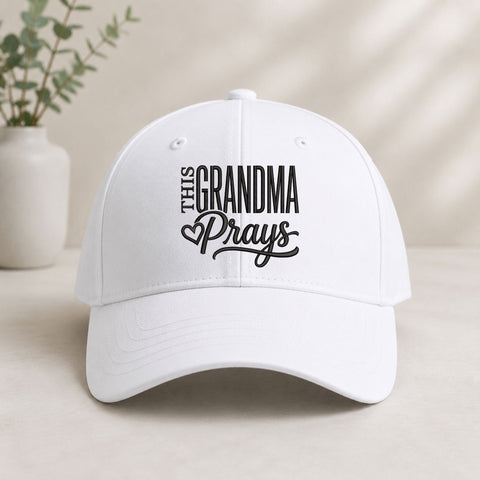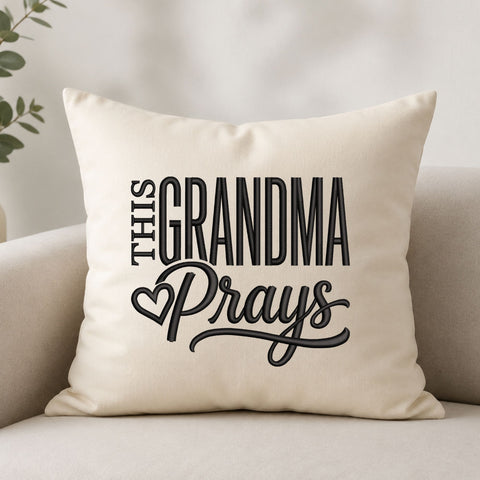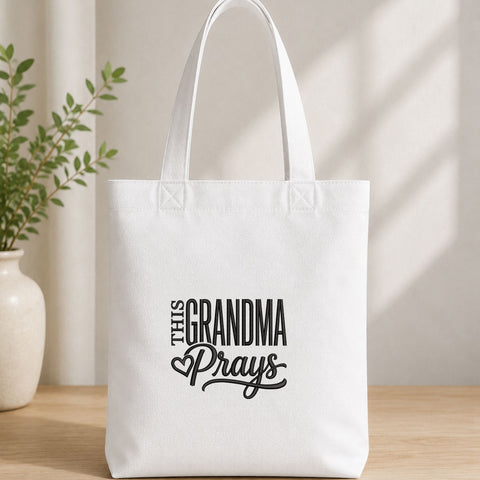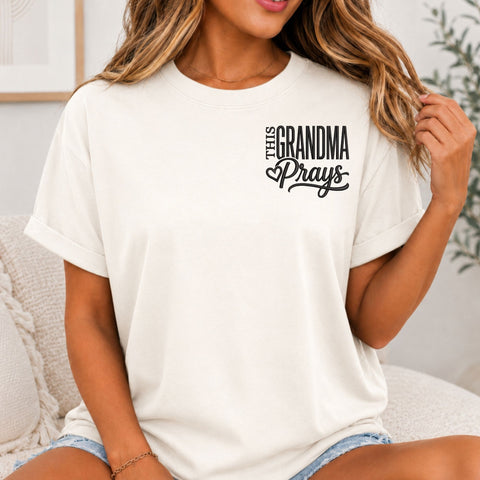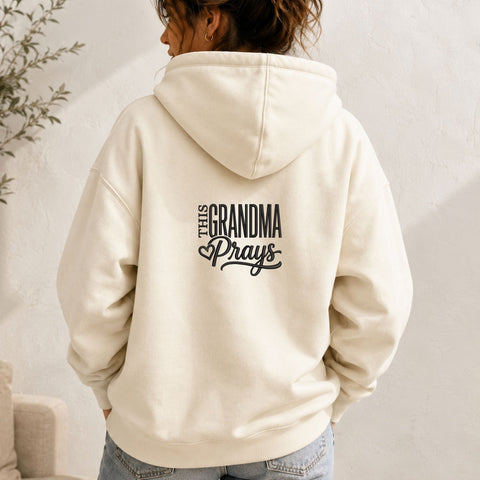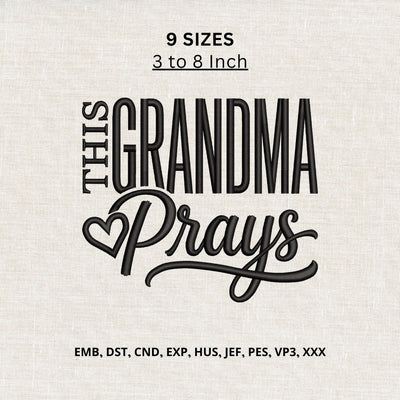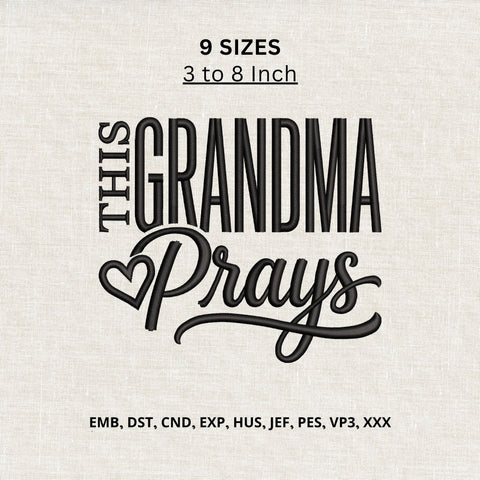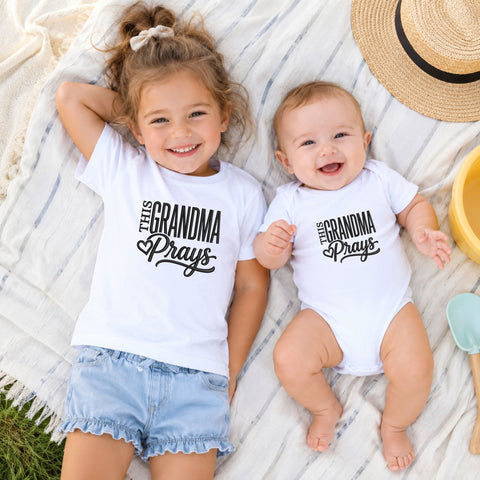
This Grandma Prays Machine Embroidery Design – Christian Grandma Embroidery File, Praying Grandma Gift, Faith Embroidery Design
Celebrate faith and the special love of a grandmother with this This Grandma Prays Machine Embroidery Design. Featuring the meaningful phrase “This Grandma Prays” with elegant script lettering, a heart accent, and a beautiful flowing flourish, this design is perfect for faith-filled grandmothers and Christian family projects.